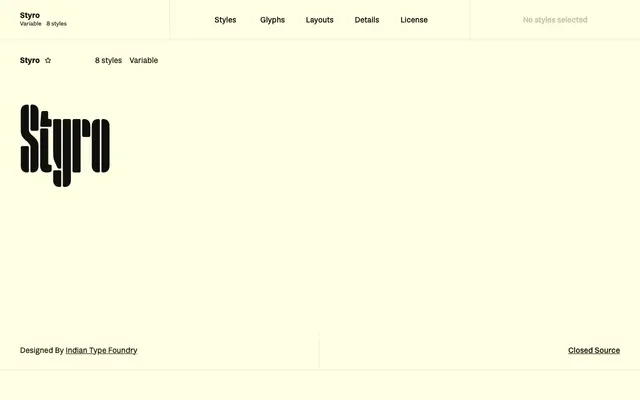
Styro
A modernist stencil family by Aarya Purohit at Indian Type Foundry, drawing on Bauhaus letterform principles across eight weights with a reductionist geometric vocabulary.
Designed at Indian Type Foundry, Styro uses thin interior lines to express counterforms and applies simple geometric terminals throughout, recalling Josef Albers' stencil work at the Bauhaus whilst retaining separate upper and lowercase characters. All eight weights are virtually monospaced, with outer stroke thickness increasing progressively from Extralight to Black. The family suits editorial work centred on modern art and design, as well as logos and posters where a stark, condensed presence is needed.
A modernist stencil display face with heavily condensed, near-monospaced letterforms and a reductionist geometric vocabulary drawing on Bauhaus precedents. Classified as display due to its strong optical character and headline-oriented application.